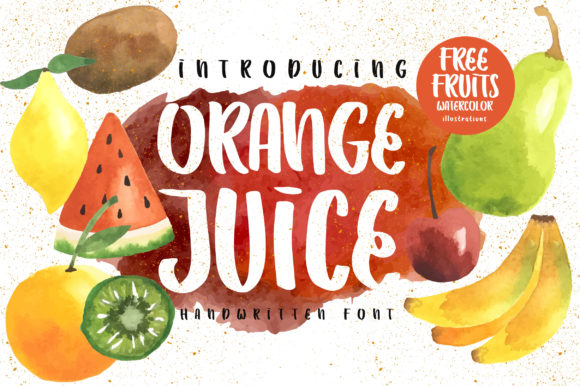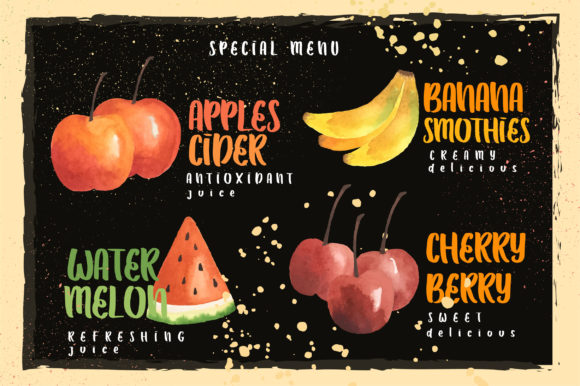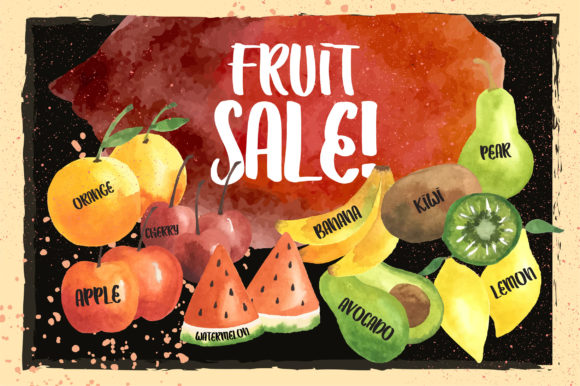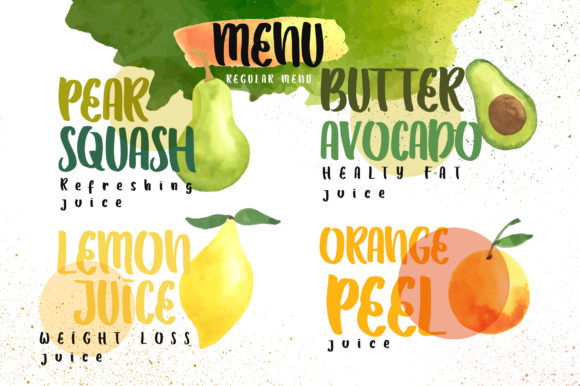
Orange Juice Font
About Orange Juice Font
Orange Juice is a quirky handwritten font with watercolour fruits illustrations as a bonus! Get inspired by this bold and fresh handwritten font!